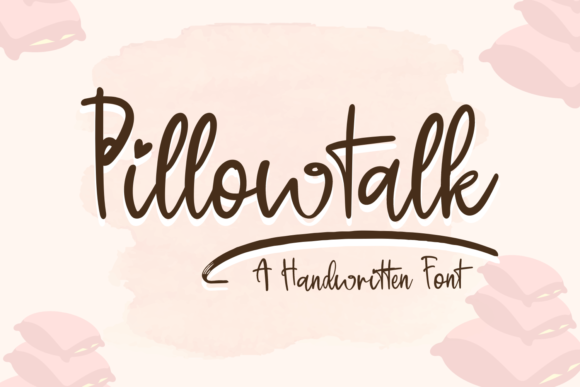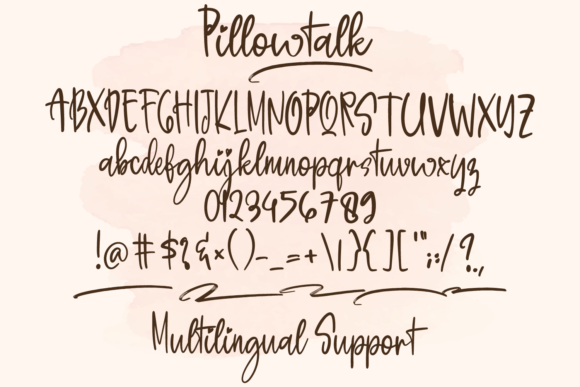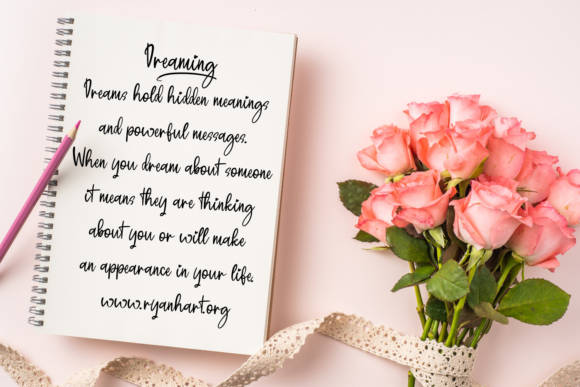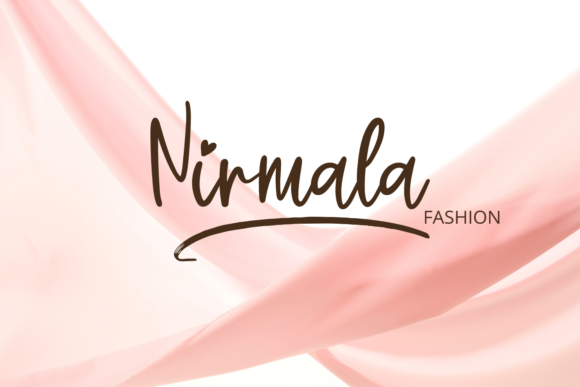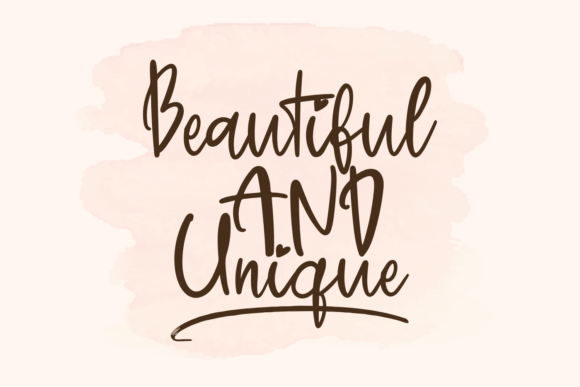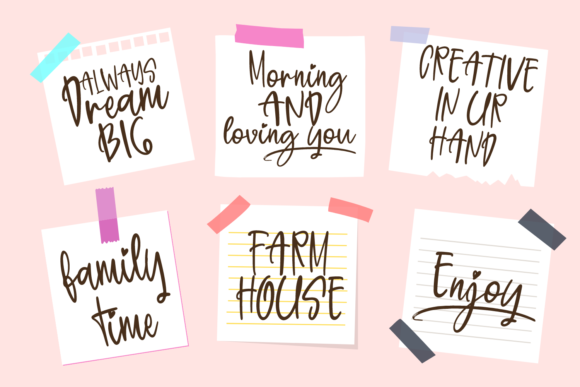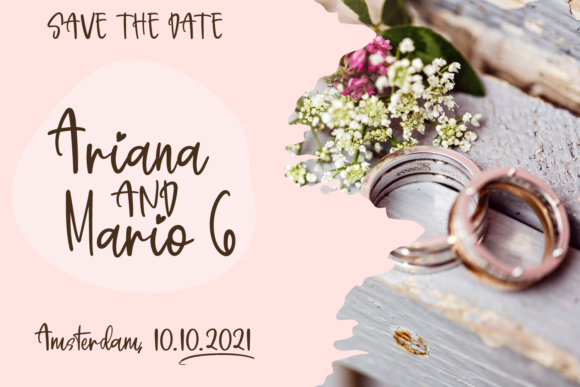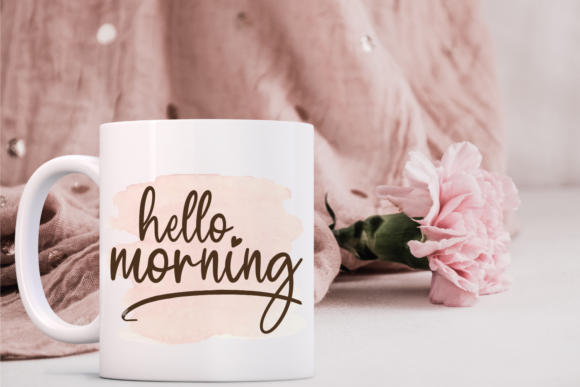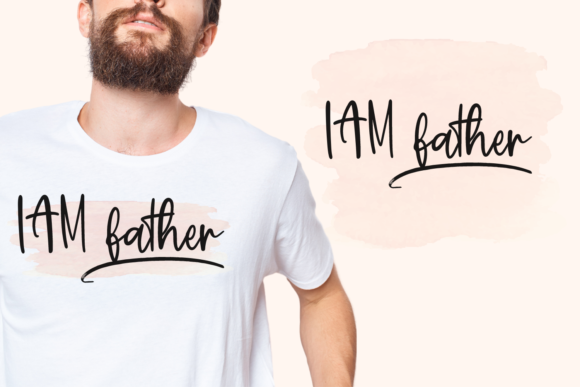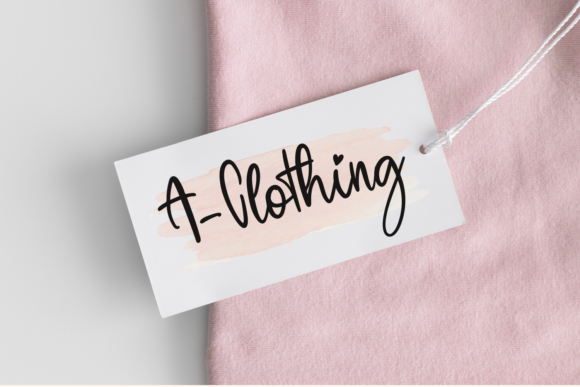
Pillowtalk Font
About Pillowtalk Font
Pillowtalk is a beautiful handwritten font perfect for any creative project and design, be it inspirational posters or brand promotion. It is also a great font to be used by crafters and graphic artists alike. Add it confidently to your work, and make it outstanding!